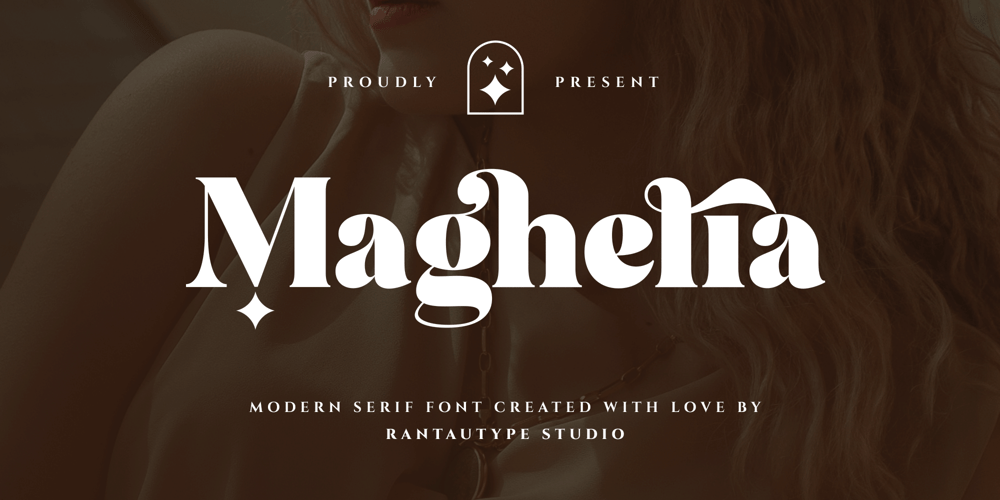
Maghelia Font Family was designed by Yudi Pratama Chandra and published by RantauType. Maghelia contains 2 styles and family package options. Maghelia is a modern serif with beautiful upper and lower character – with a complementary italic version. Maghelia come with unique ligature can make you brand or design stand out.Maghelia is a beautiful choice for any creative endeavor, chic, lifestyle design such as logos, title, watermark on photography, cover, branding, display and magazine, wedding event, quotes, album cover, business card and many other design project.What you have: Standar letter A-Z and a-z Numberial and Functional Alternate and ligature Works on PC & Mac Simple installations Accessible in Adobe Illustrator, Adobe Photoshop, Adobe InDesign, even work on Microsoft Word. Fonts include Multilingual Support for: Afrikaans, Albanian, Asu, Basque, Bemba, Bena, Breton, Chiga, Cornish, Dutch, English, Estonian, Filipino, Finnish, Friulian, Galician, Gusii, Indonesian, Irish, Italian, Kabuverdianu, Kalenjin, Kinyarwanda, Luo, Luxembourgish, Luyia, Machame, Makhuwa-Meetto, Makonde, Malagasy, Manx, Morisyen, North, Ndebele, Nyankole, Oromo, Portuguese, Quechua, Romansh, Rombo, Rundi, Rwa, Samburu, Sango, Sangu, Scottish, Gaelic, Sena, Shambala, Shona, Soga, Somali, Spanish, Swahili, Swedish, Swiss, German.Thank you for your purchase!Hope you enjoy with our font!